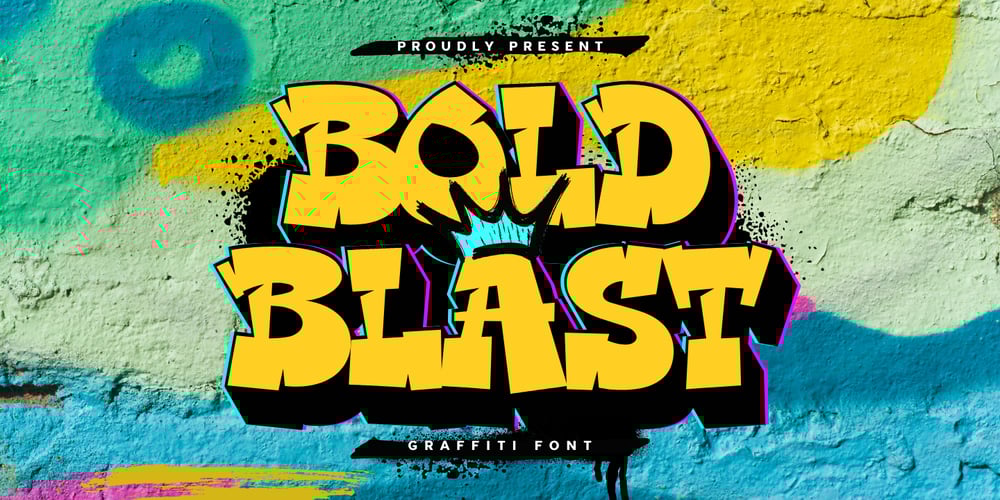
Bold Blast
Bold Blast font
Bold Blast Font Family was designed by Muhamad Yusron Billah and published by Sronstudio. Bold Blast contains 3 styles and family package options. Bold Blast is an urban graffiti font with a bold and edgy style. Its striking, dynamic characters bring street art to life, making it perfect for posters, apparel, and urban-themed designs. Bold Blast adds a raw, expressive touch to any project.Included:- 3 Style : Regular, Shadow & Extrude- Upper & Lowercase- Numeral & Punctuation- PUA Encoded- Multilingual support- Simple Installation- Work both on Mac and WindowsThank you very much 🙂